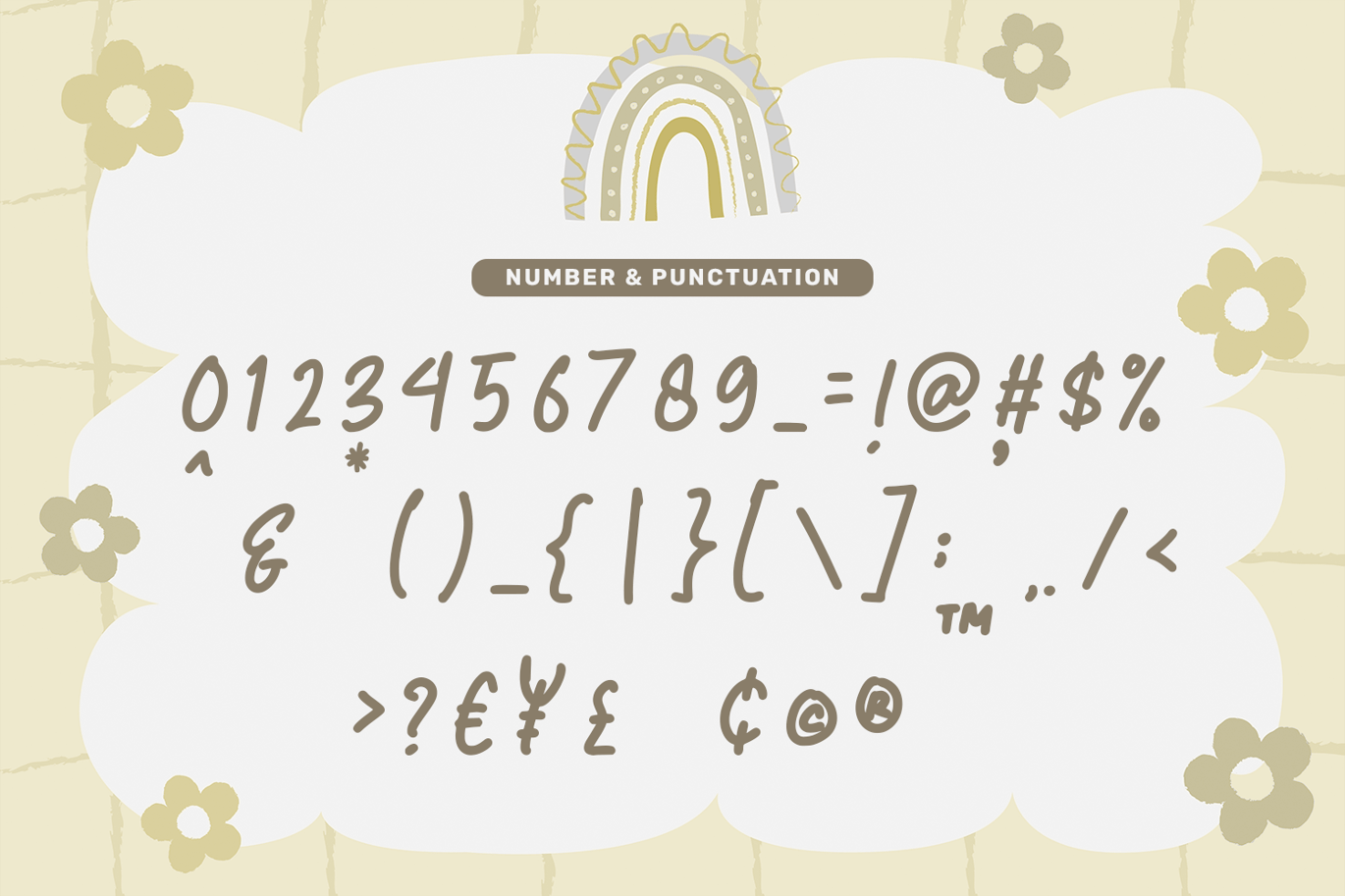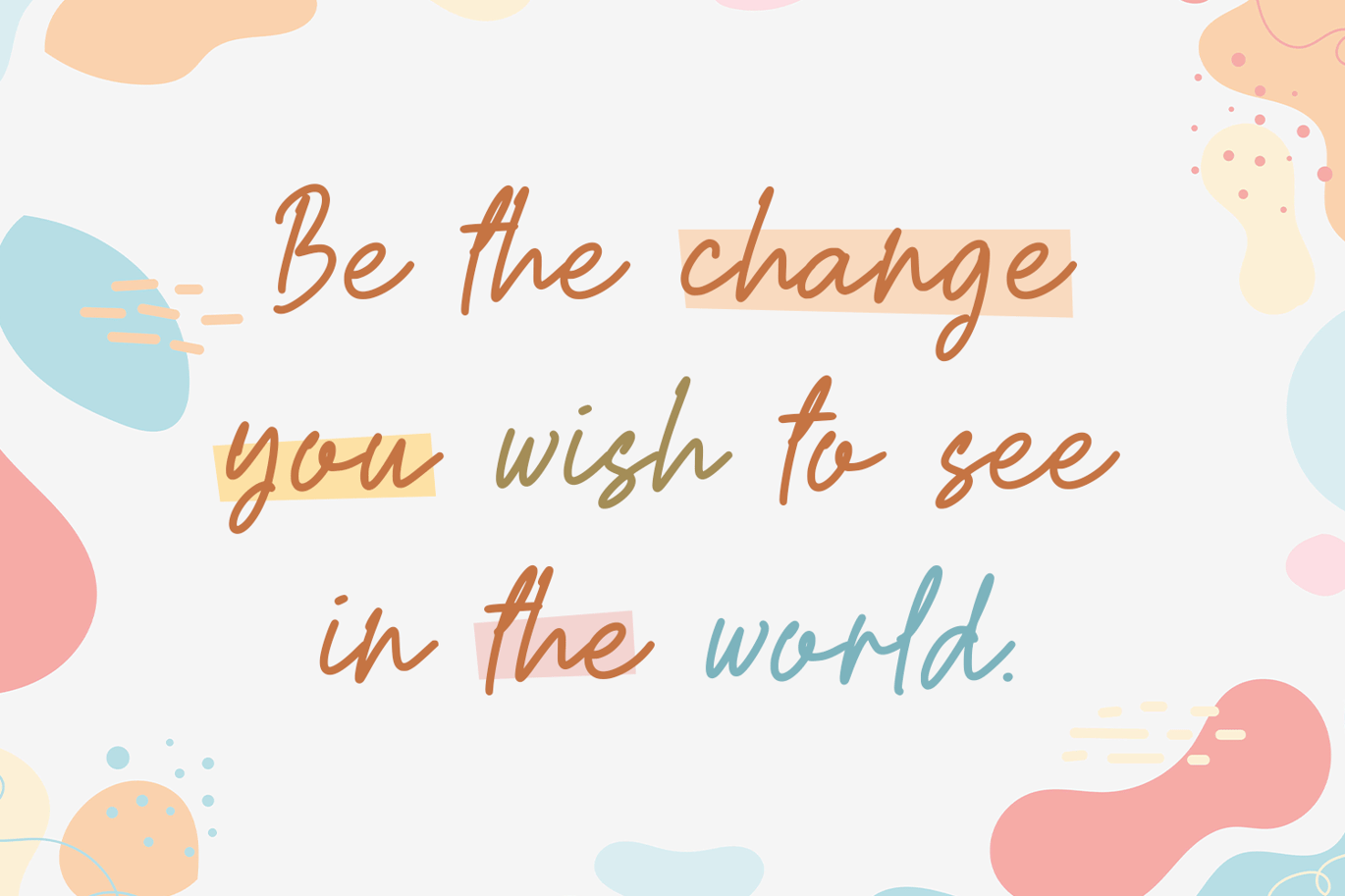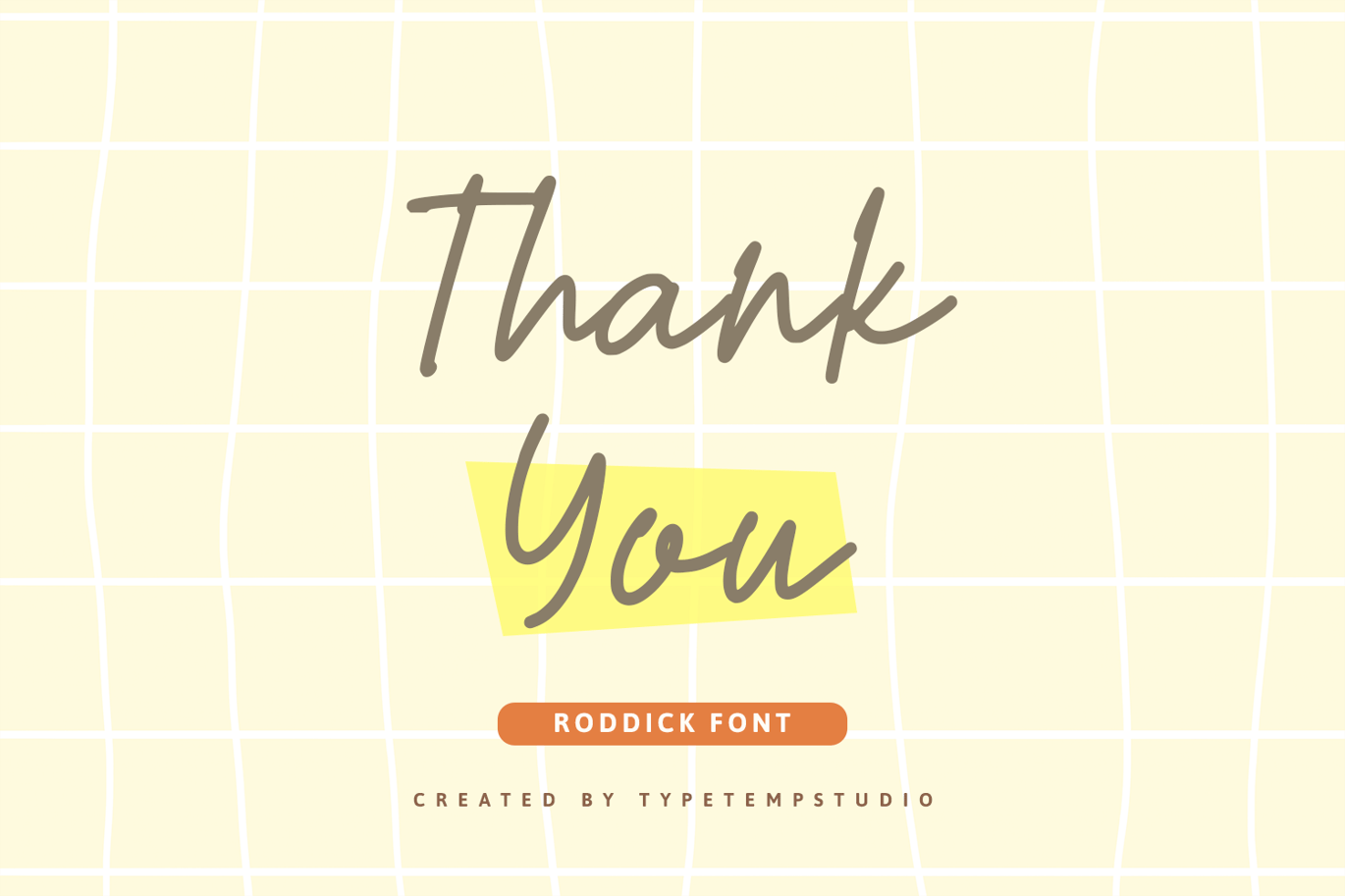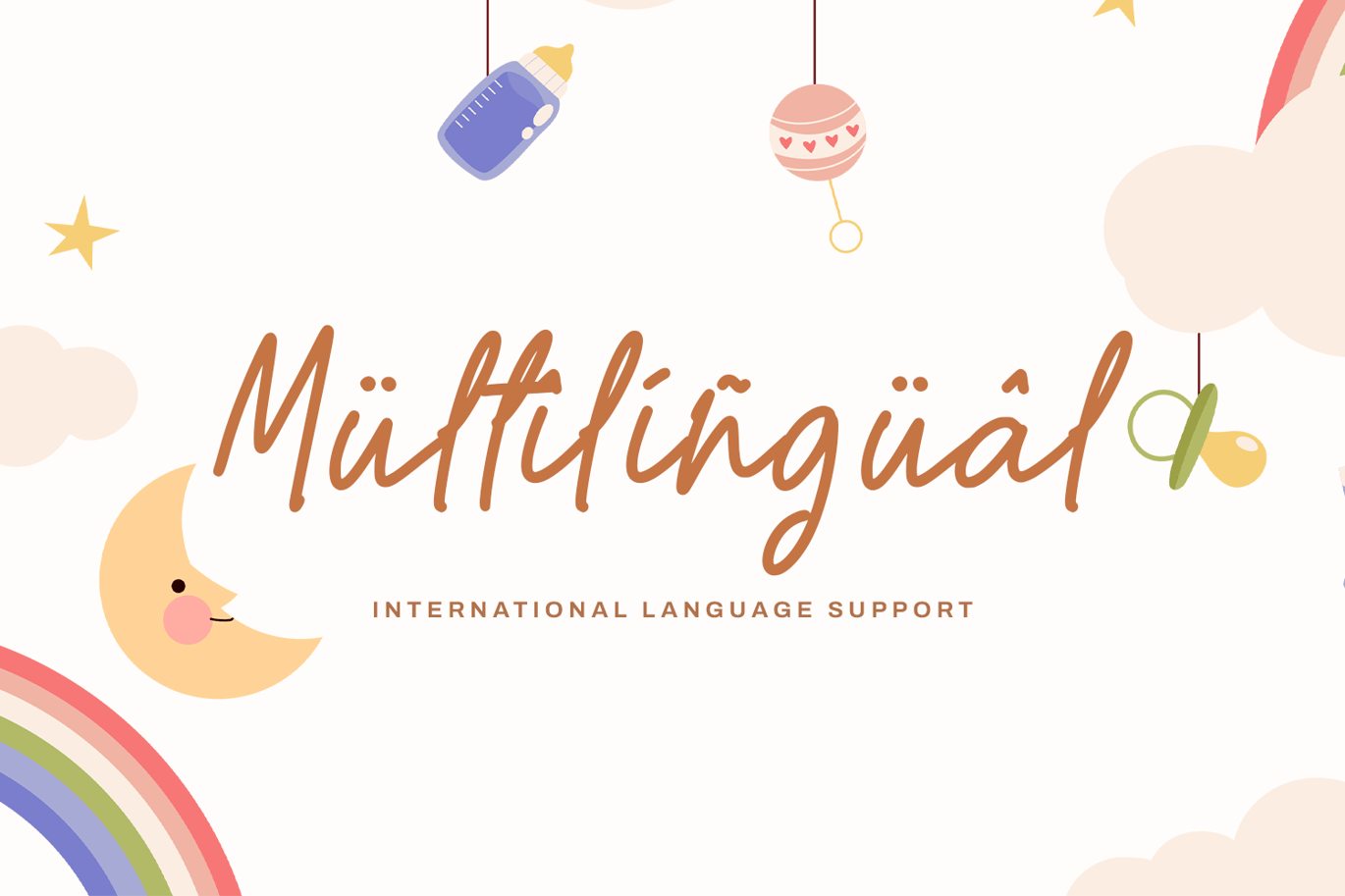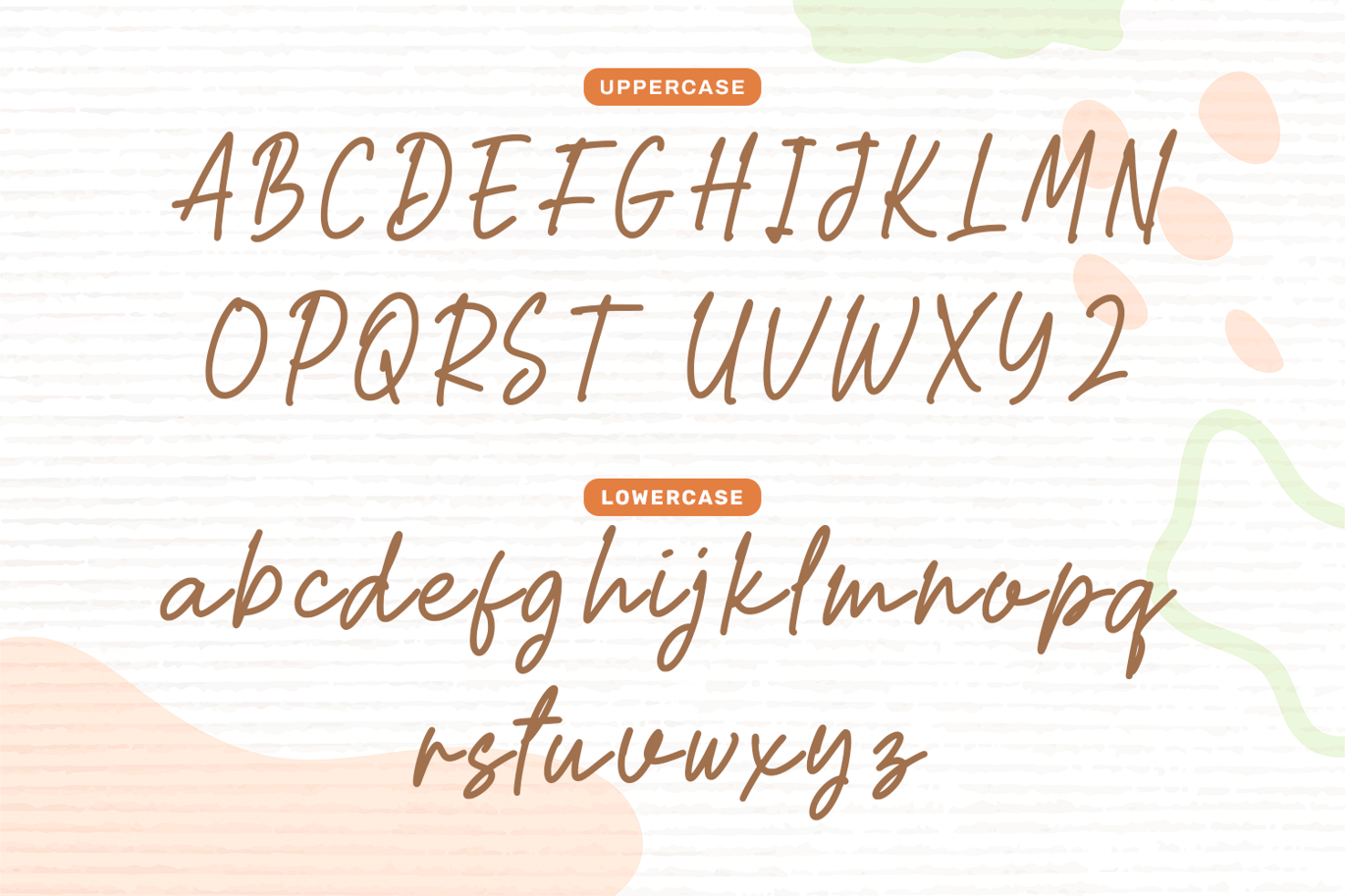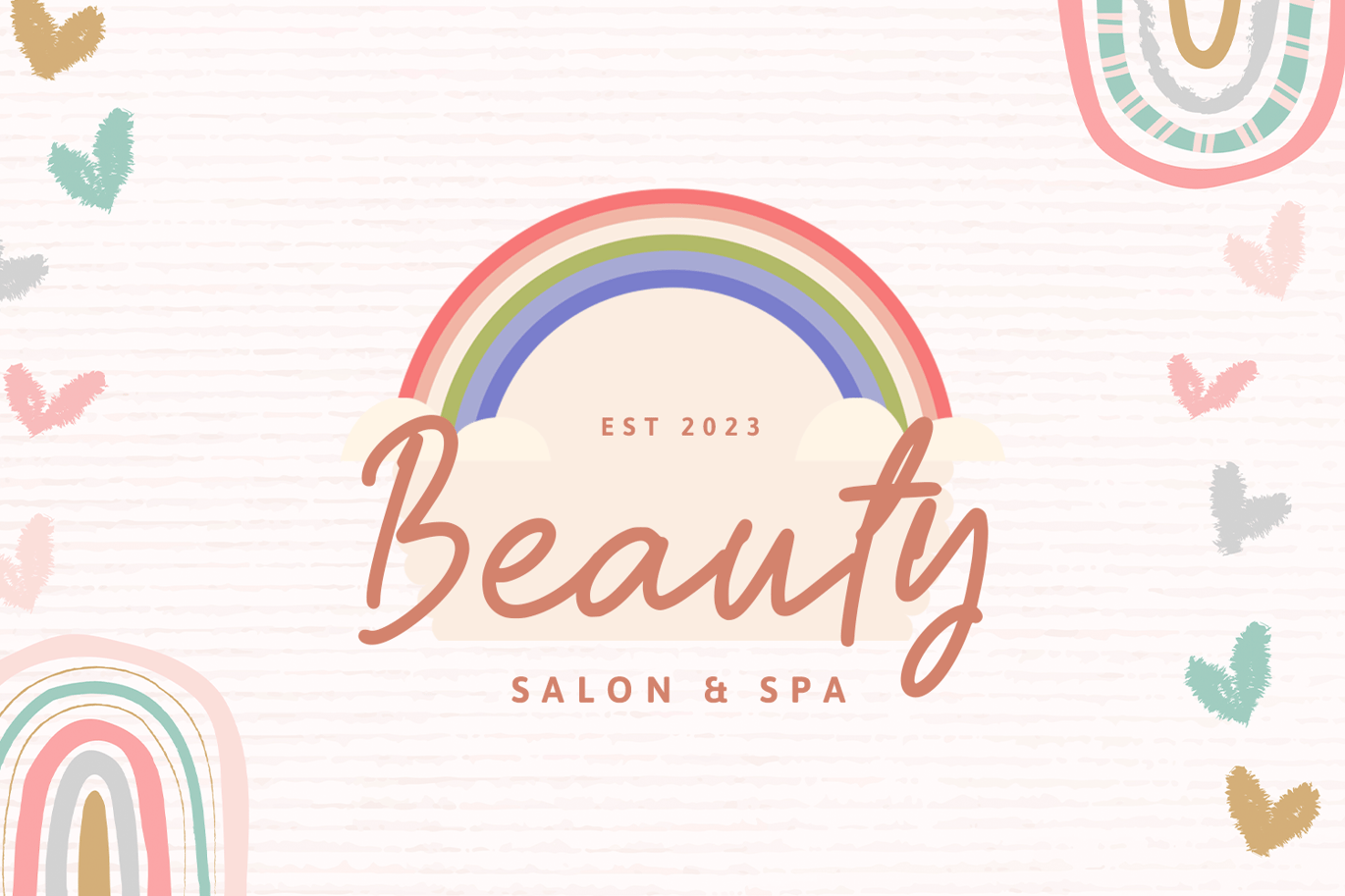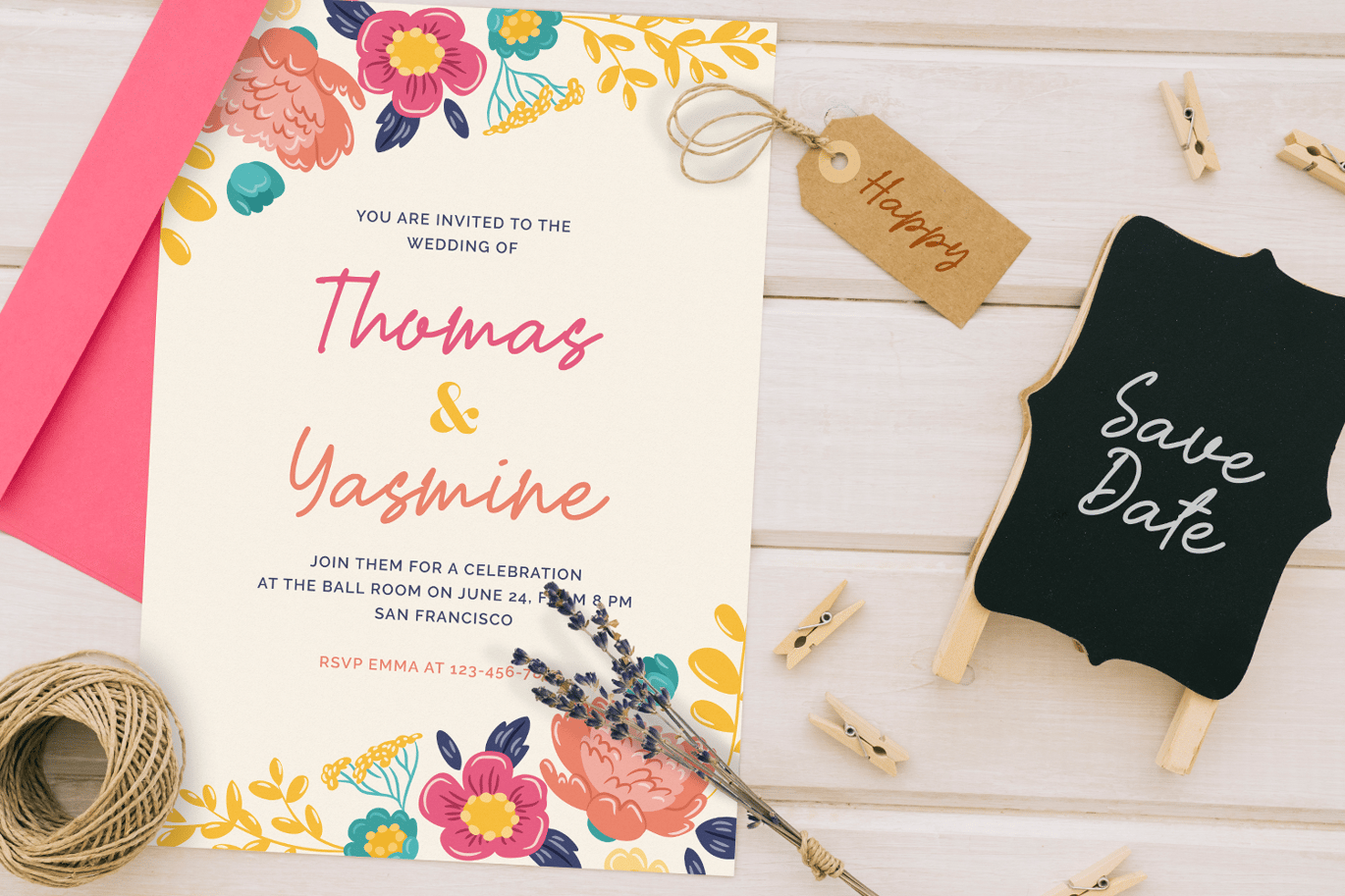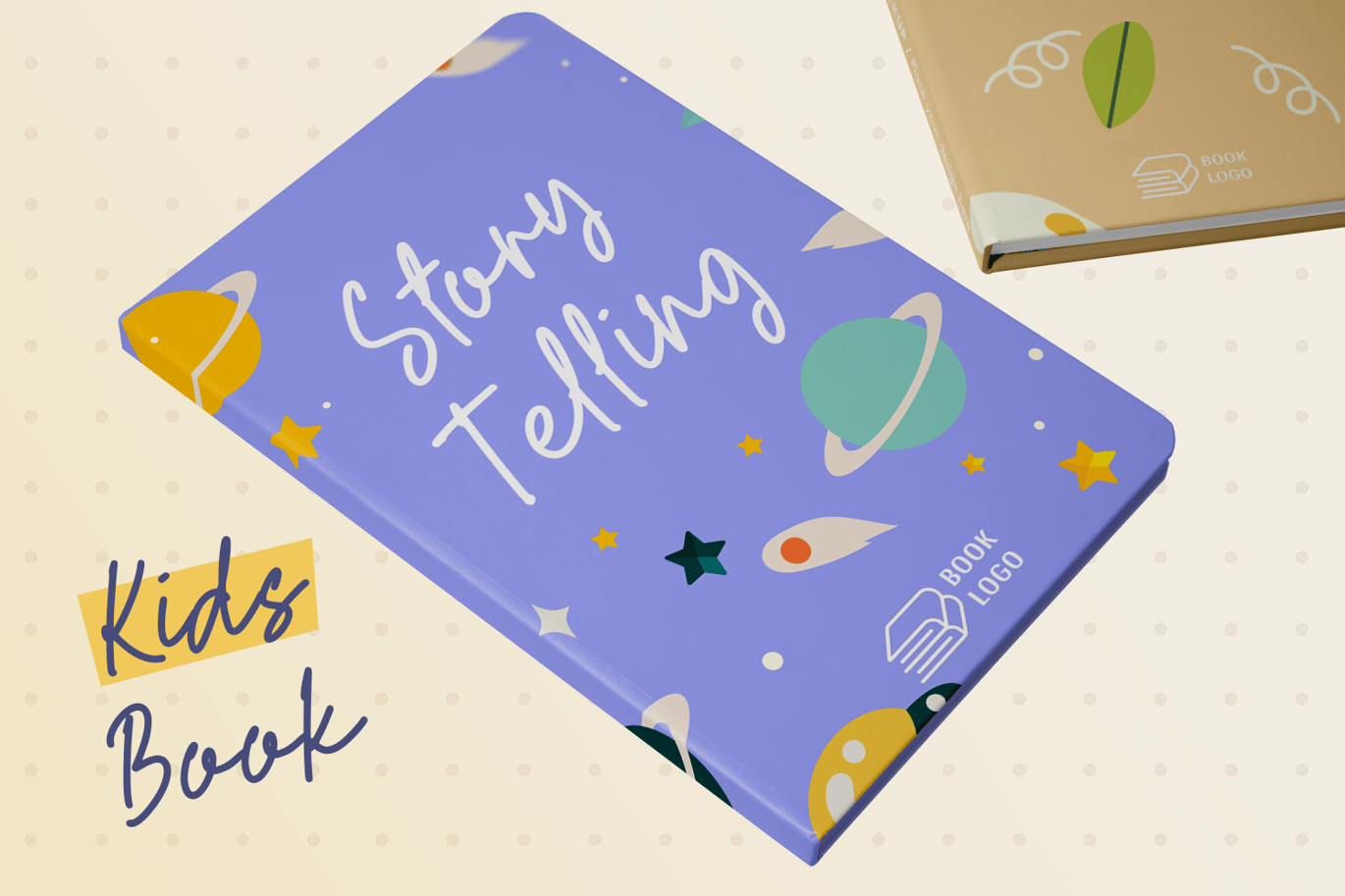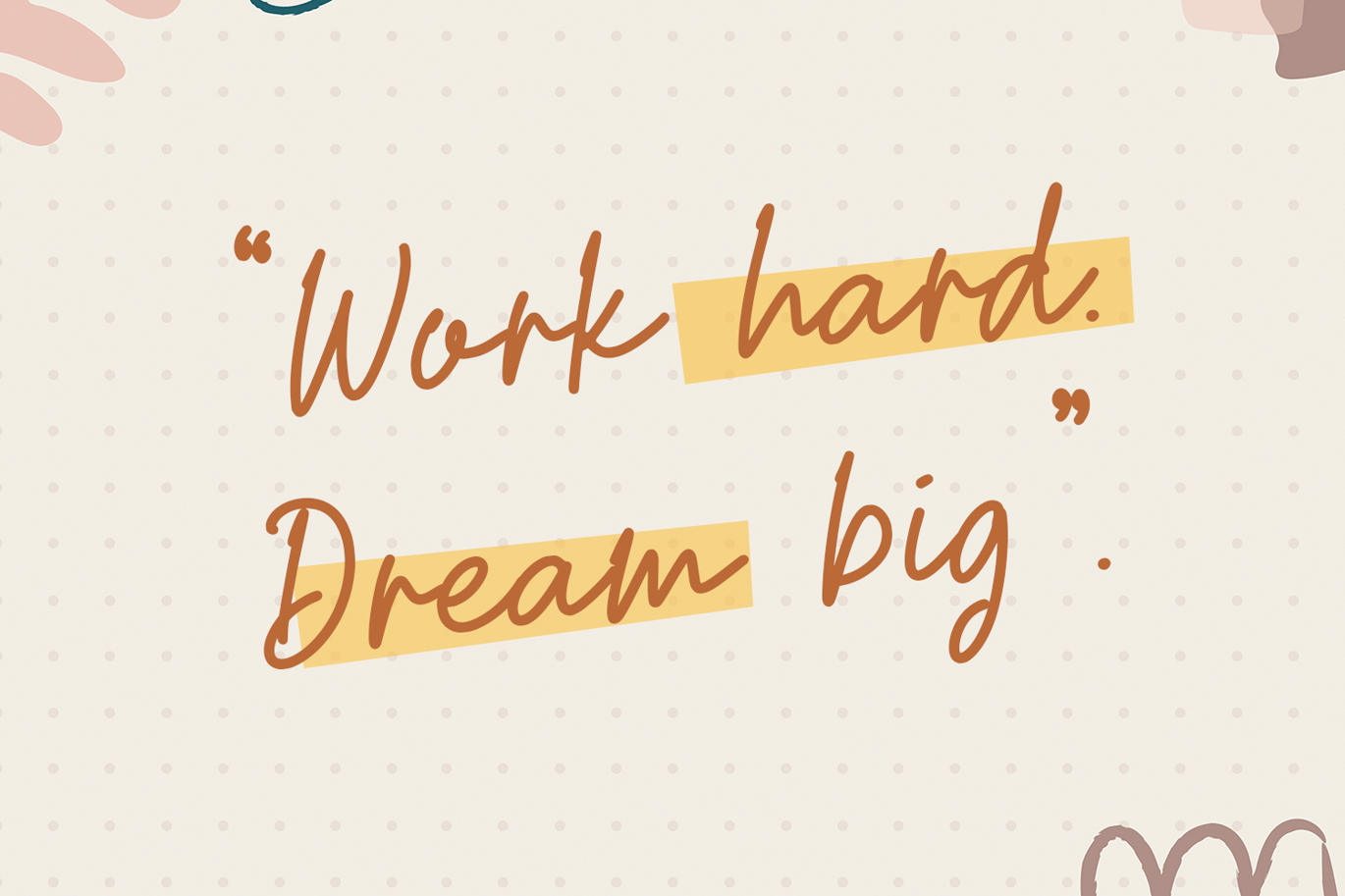
Roddick Cute Script Font
Diary Book is Handwritten complemented by some of the same alternatives made with love. Access your OpenType features to access the large selection of alternate letters and ligatures, select the letters you like from the large variety to get the display font you like. Perfect for editorial projects, Logo design, Clothing Branding, product packaging, magazine headers, or simply as a stylish text overlay to any background image.
- Stylistic Alternates & Ligatures
- Multilanguange